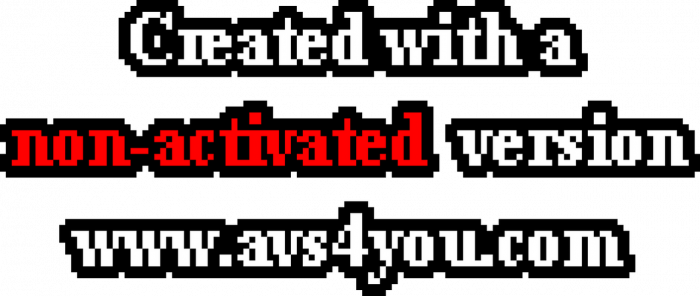
• A Recreation of the (old) Non-Activated AVS Watermark Font! (this probably exists as a font already)
* = rs
+ = 5 pixel space between D and V
Created with a
non-activated version
www.avs4you.com